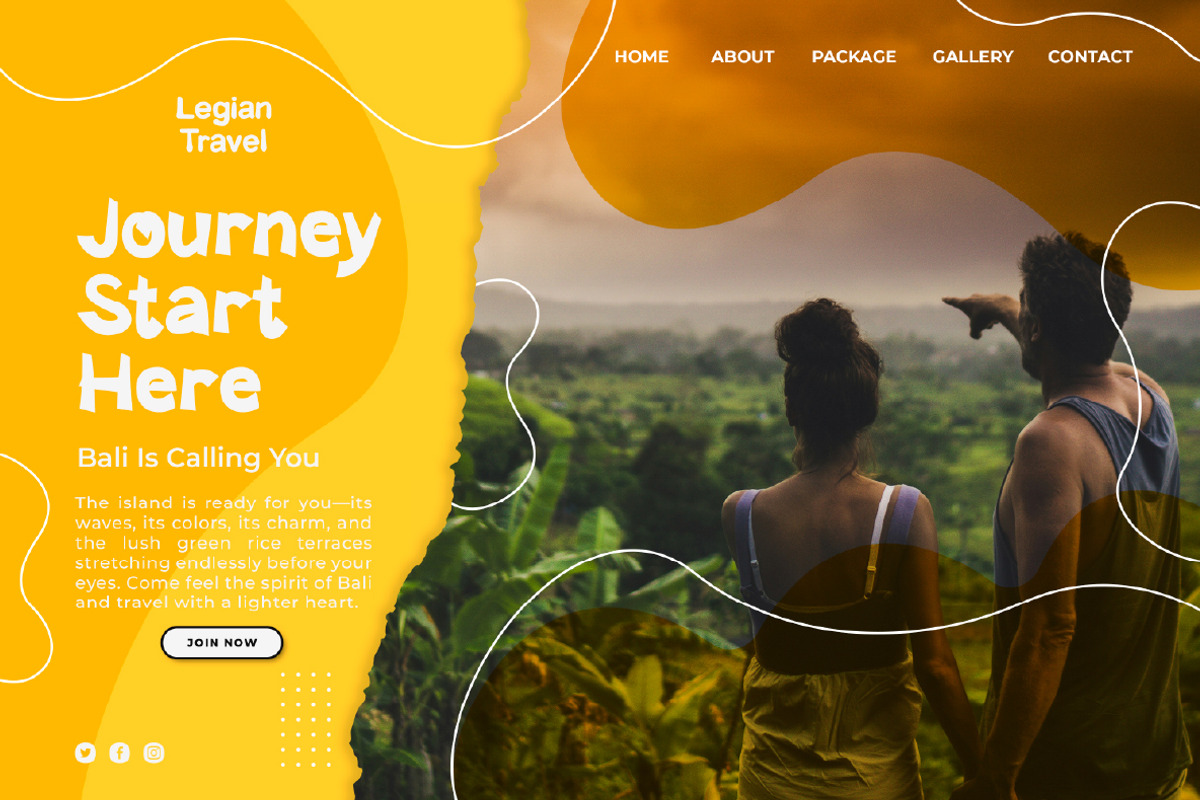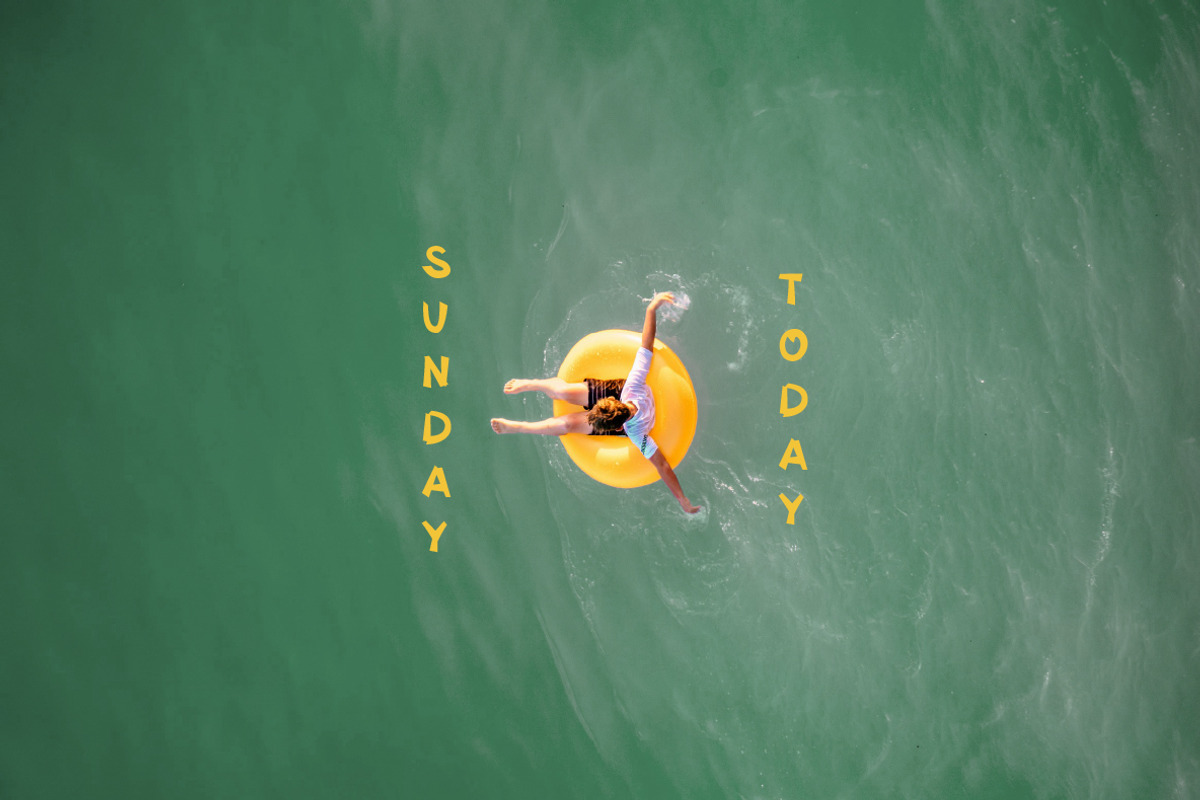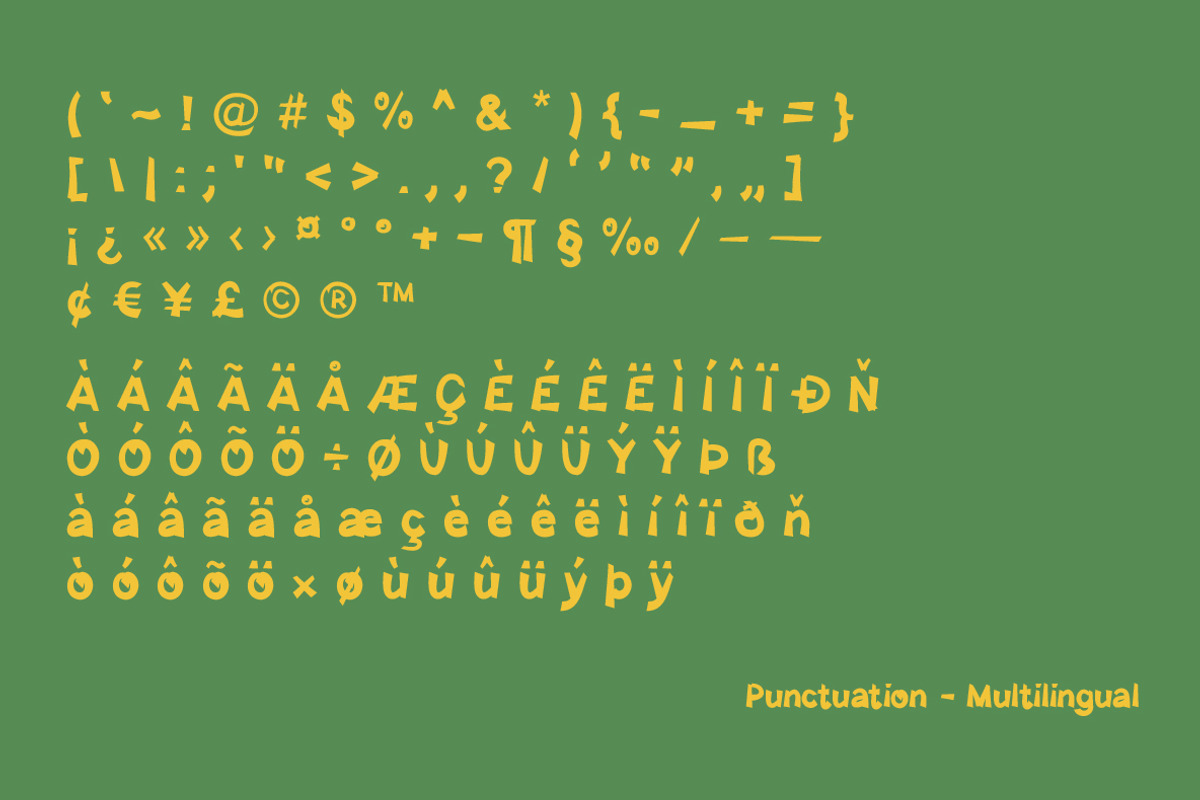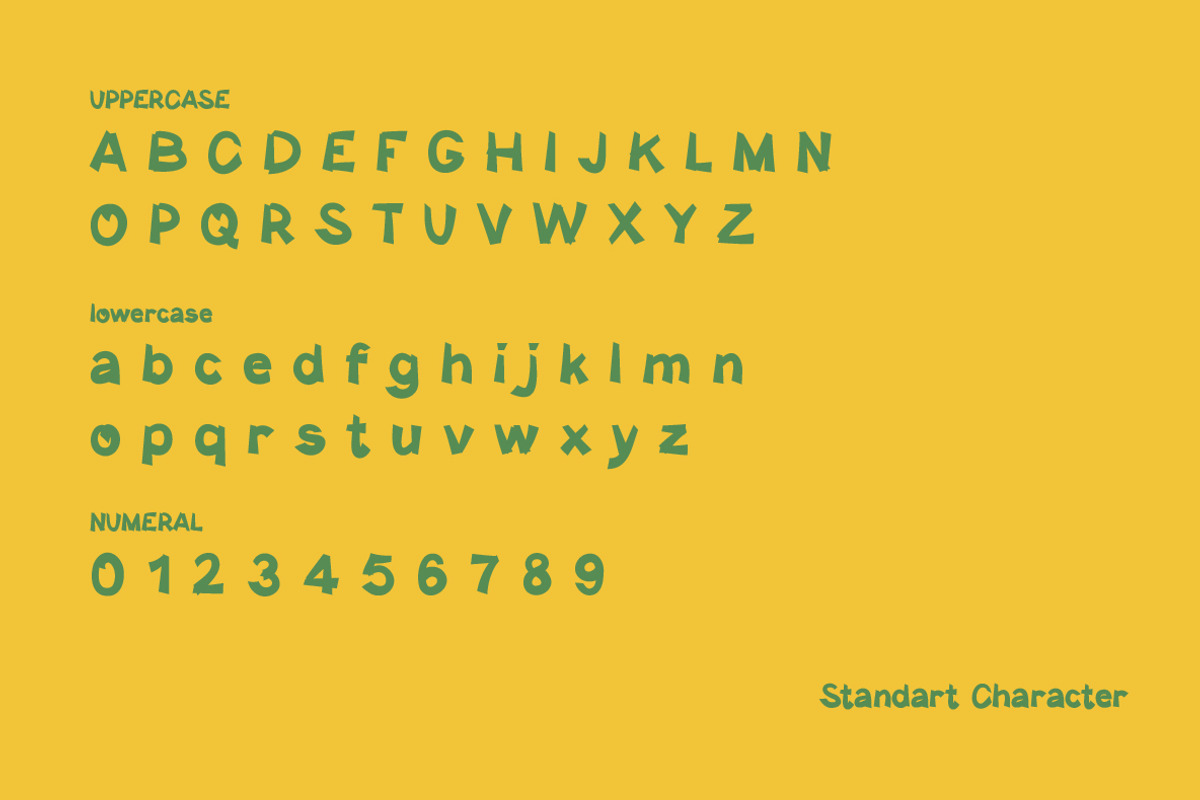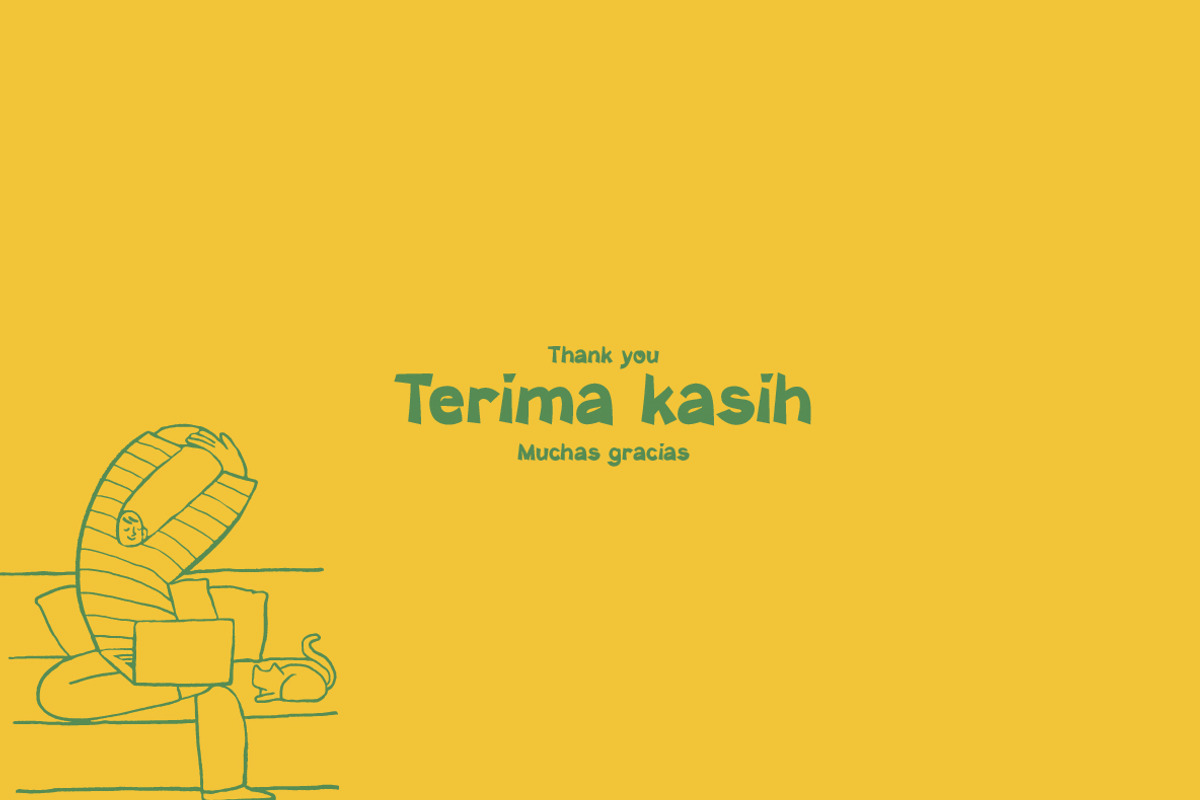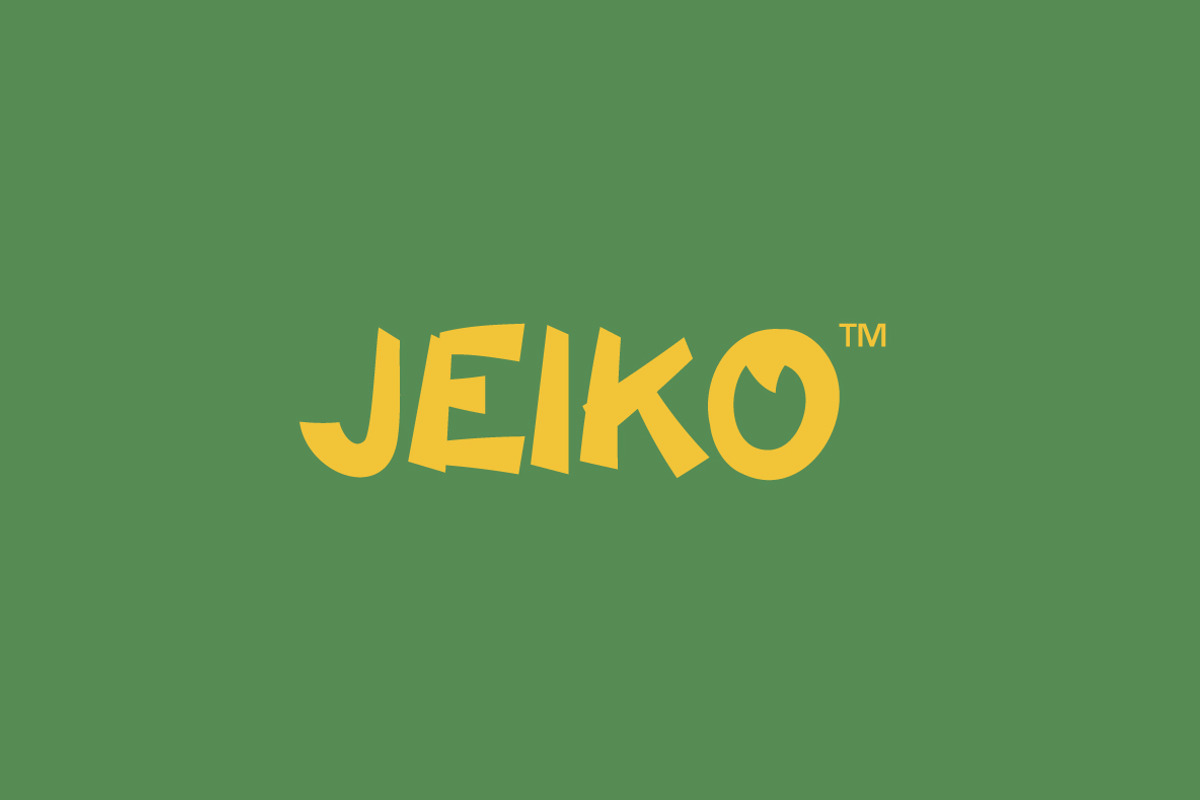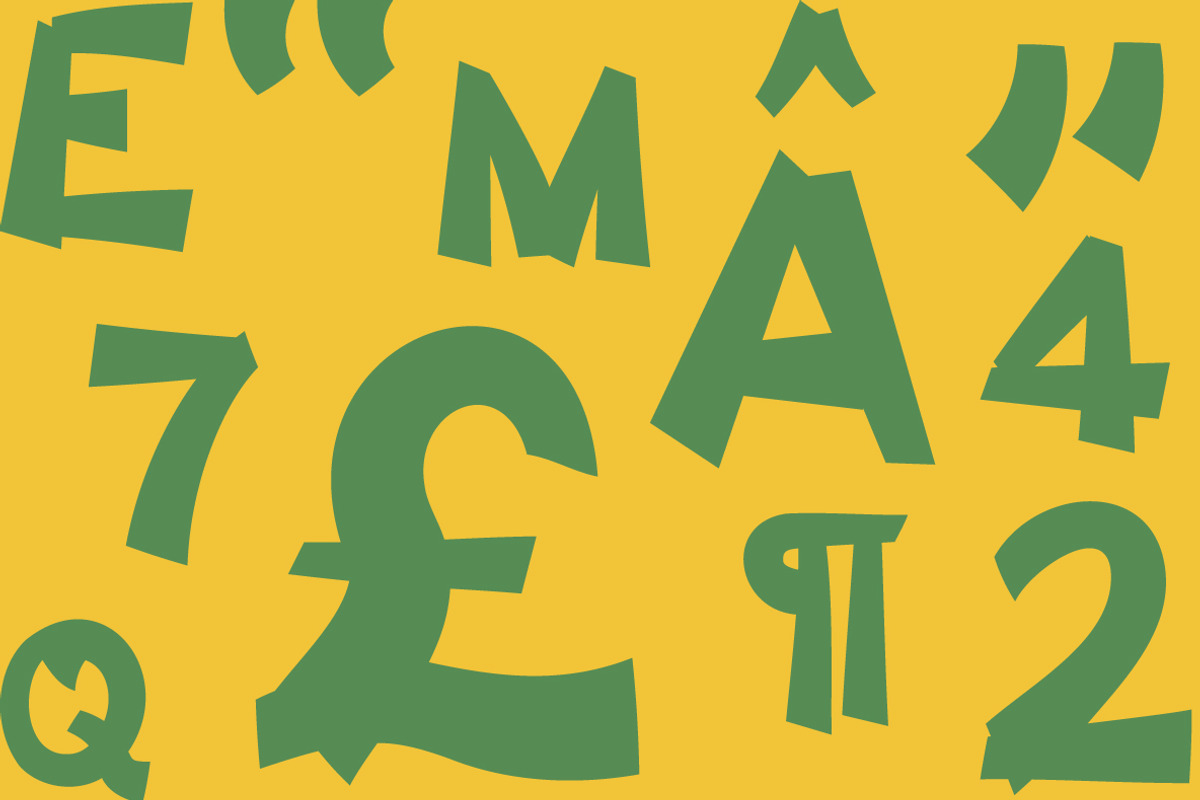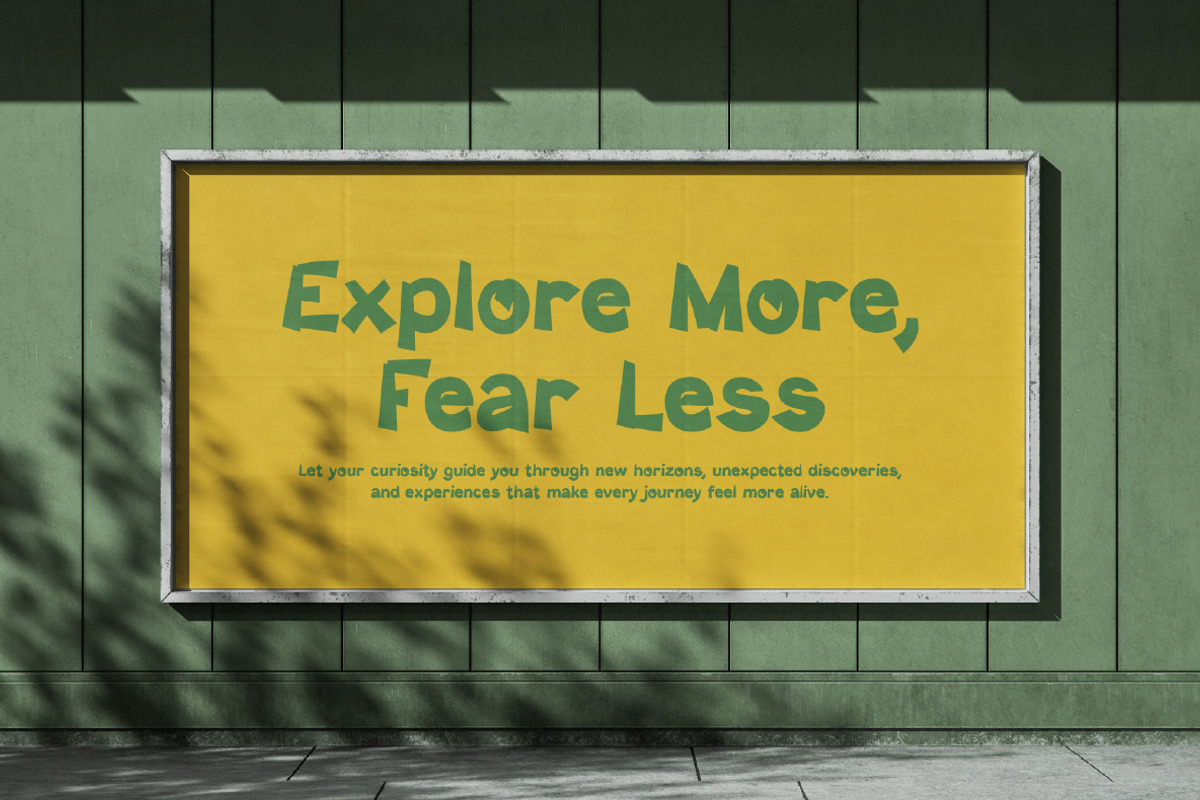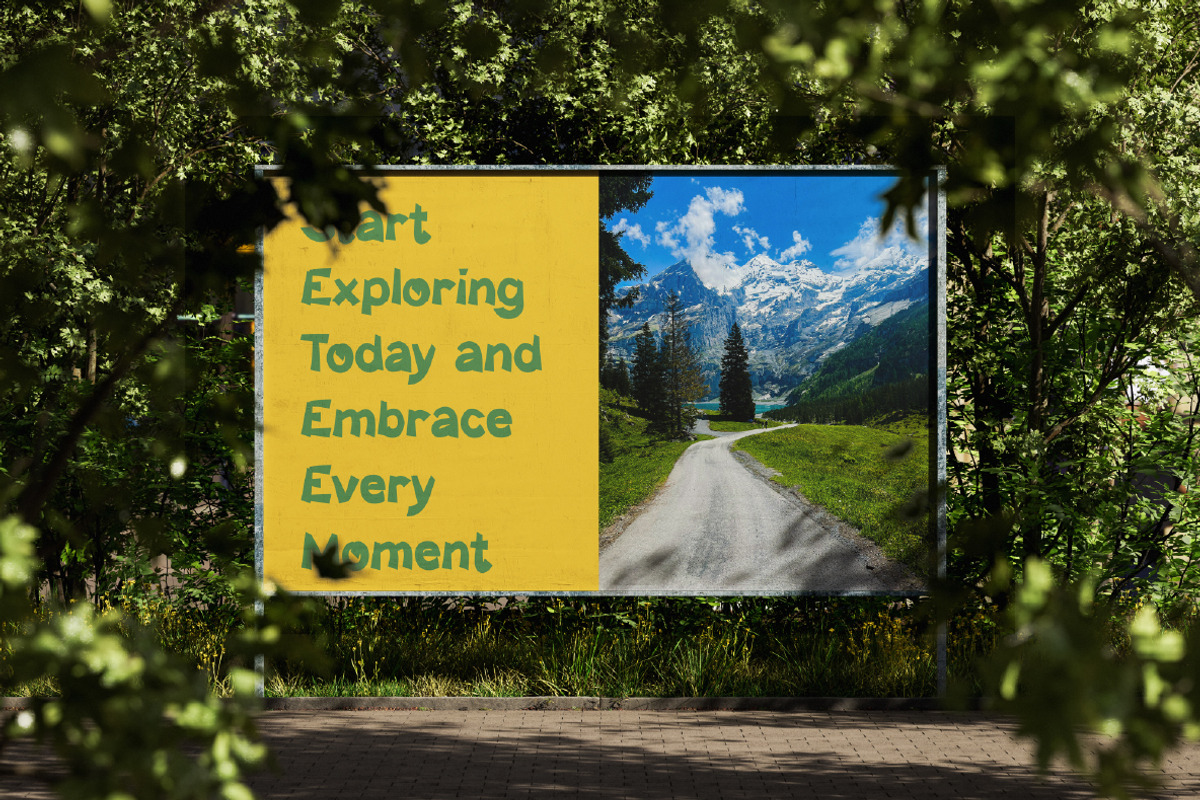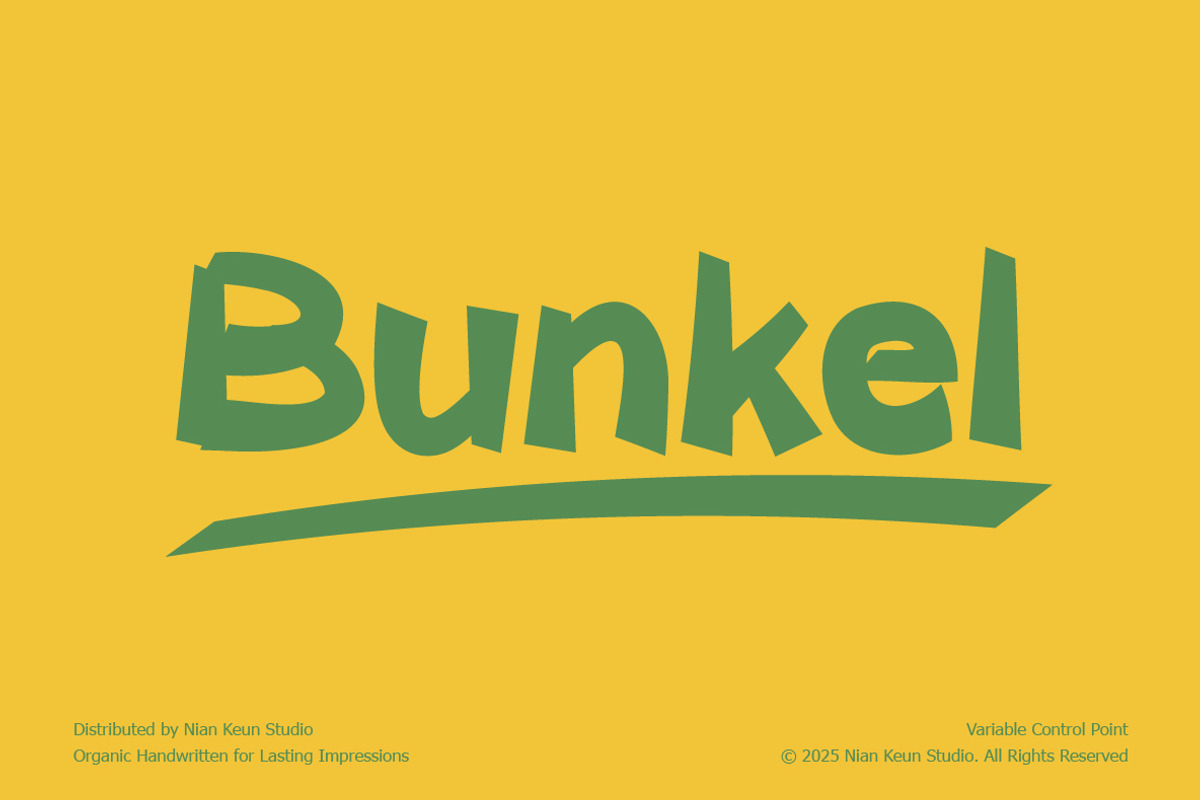
Bunkel - Playful Handdrawn Display
Bunkel is a playful organic handwritten display font with quirky shapes and expressive character. Designed with an energetic hand-drawn style, Bunkel brings a fun, friendly, and lively personality to any creative project. Its uneven strokes, dynamic angles, and natural imperfections give it a unique charm that feels human, warm, and full of motion.
Perfect for branding, packaging, poster design, children’s products, educational materials, comics, illustrations, and social media graphics, Bunkel delivers a cheerful visual voice that instantly stands out.
Whether you’re creating a fun logo, a bold headline, or a vibrant product design, Bunkel adds joy, attitude, and authenticity to your message.
- Playful and organic handwritten style
- Quirky shapes with expressive movement
- Hand-crafted strokes for a natural, human feel
- Perfect for kids’ themes, fun branding, posters, and packaging
- Eye-catching and full of personality
- Great readability for display use
- Multilingual support (add the languages you support)